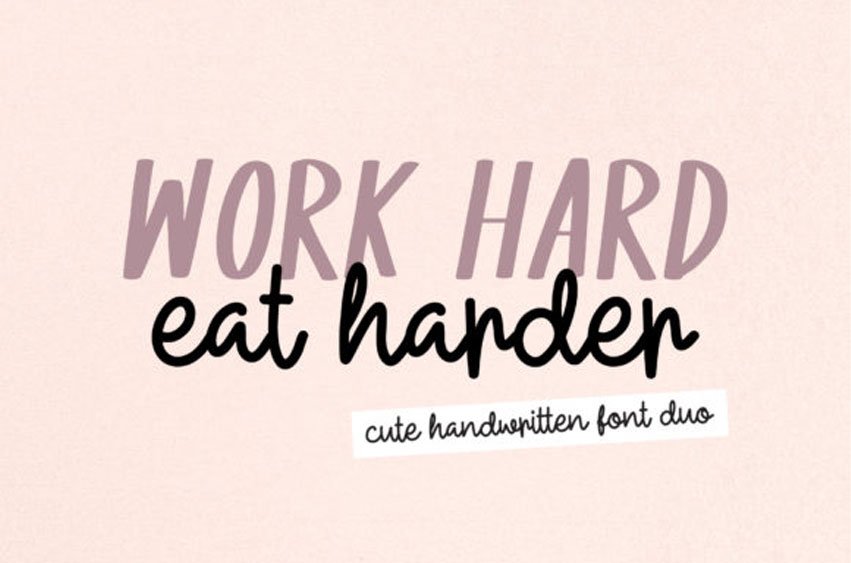
Work Hard Eat Harder Font is a wonderful handwritten duo font with a modern and elegant feel.
It can be applied to logos, branding, invitations, cards, wedding cards, social media posts and so much more!